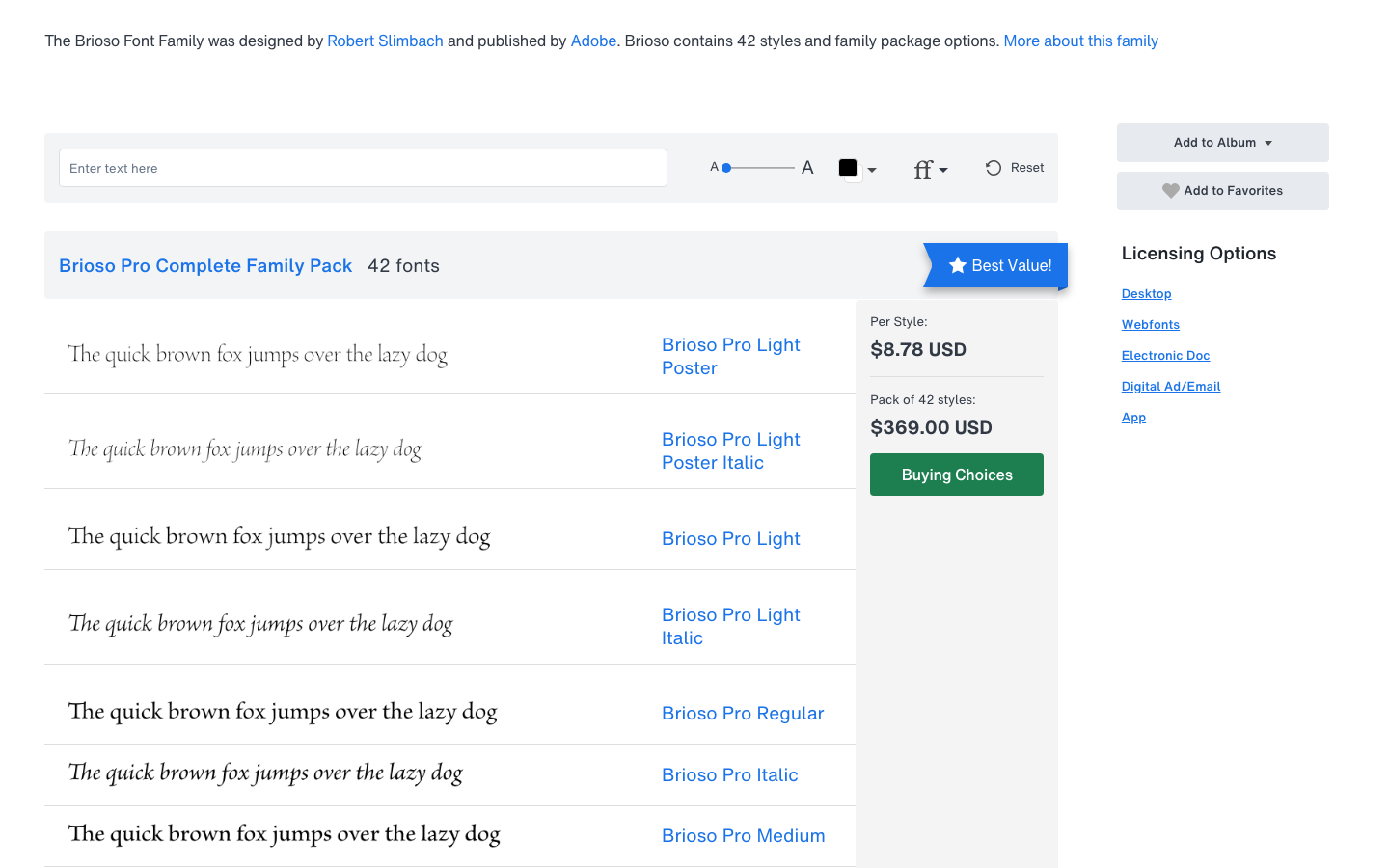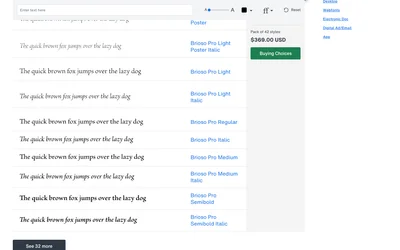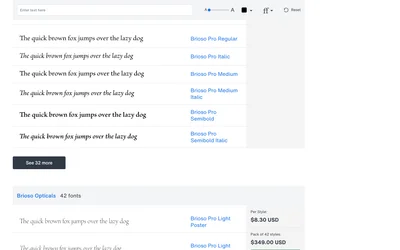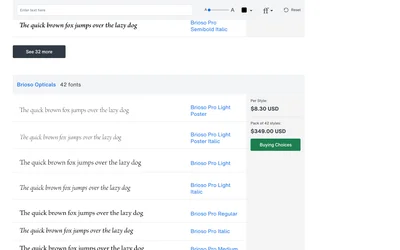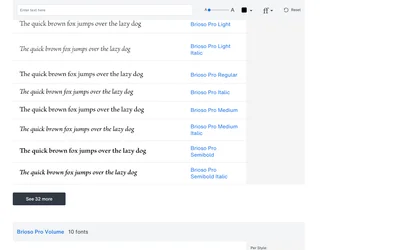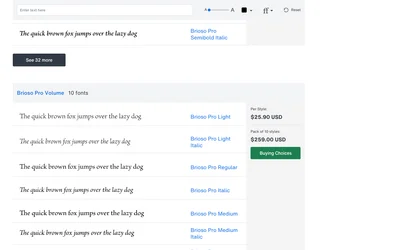
Brioso Pro vs Minion Pro
Brioso Pro and Minion Pro are both serif typefaces from different design traditions. Where Brioso Pro leans script, warm, Minion Pro brings old style, elegant. Compare which suits your Editorial project.
Recommended: Brioso Pro
- script, warm design character
- Suited for Branding and Packaging
- From adobe